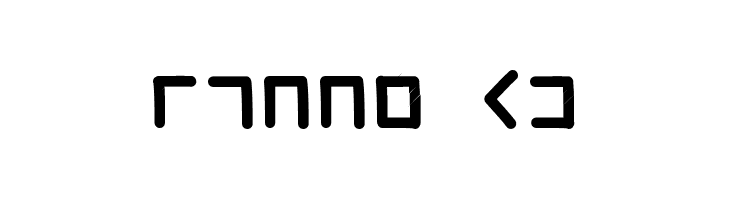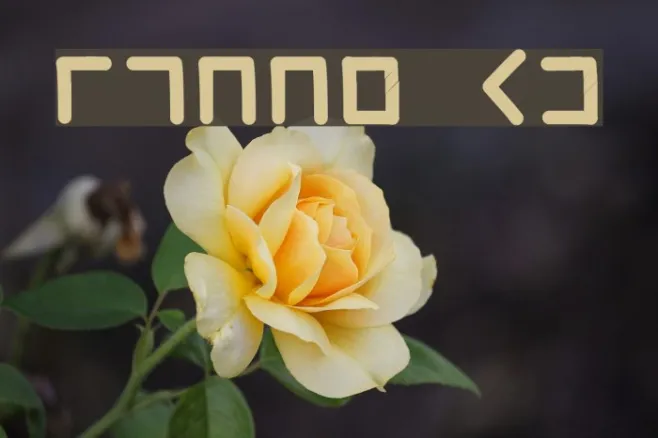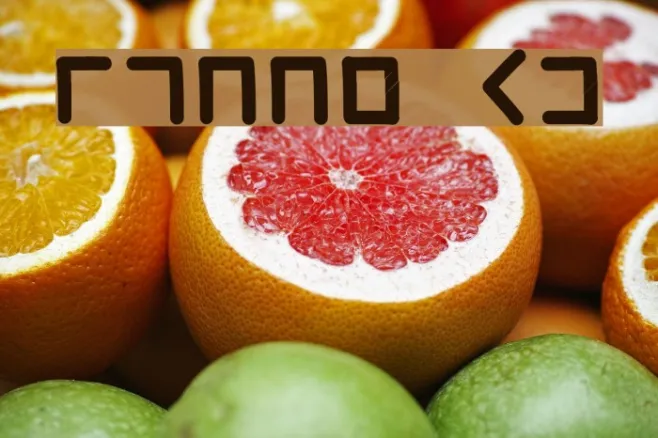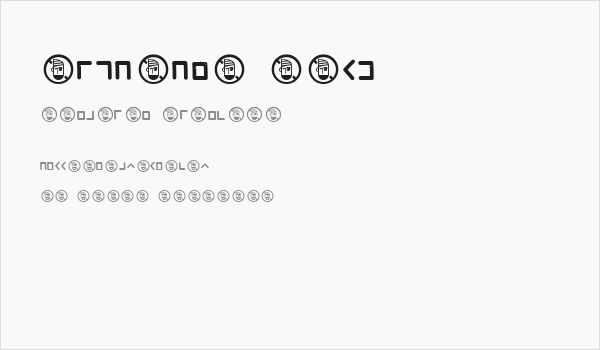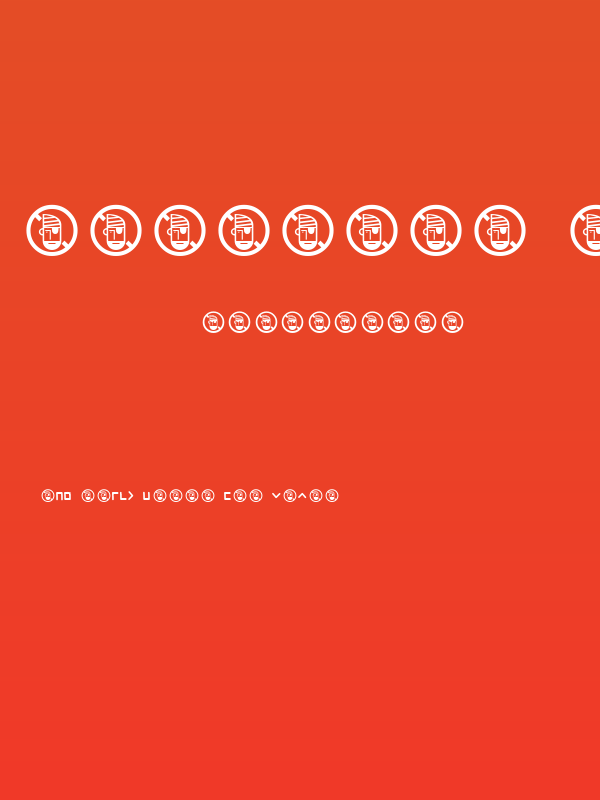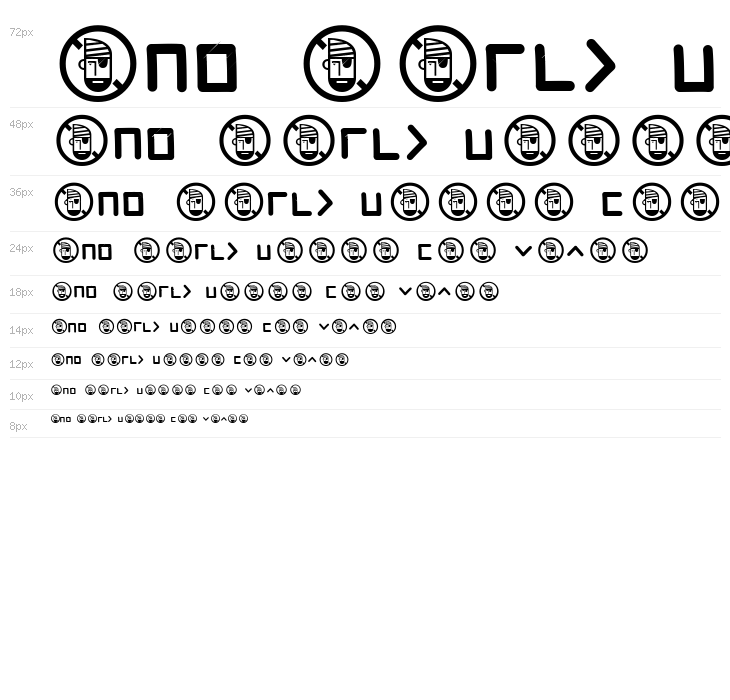
Sighpher Bold Font
Sighpher Bold Description
This font features a unique, futuristic design with bold, geometric shapes. The characters are constructed with thick, uniform strokes that give a sense of strength and modernity. The overall appearance is clean and minimalistic, with a distinct digital or sci-fi aesthetic. The letters are evenly spaced, contributing to a balanced and harmonious look. This font is particularly suitable for projects that require a modern and innovative touch, such as technology branding, video game titles, or futuristic-themed designs.
| Proposed Projects | Ideal for technology branding, video game titles, sci-fi movie posters, and futuristic-themed designs. |